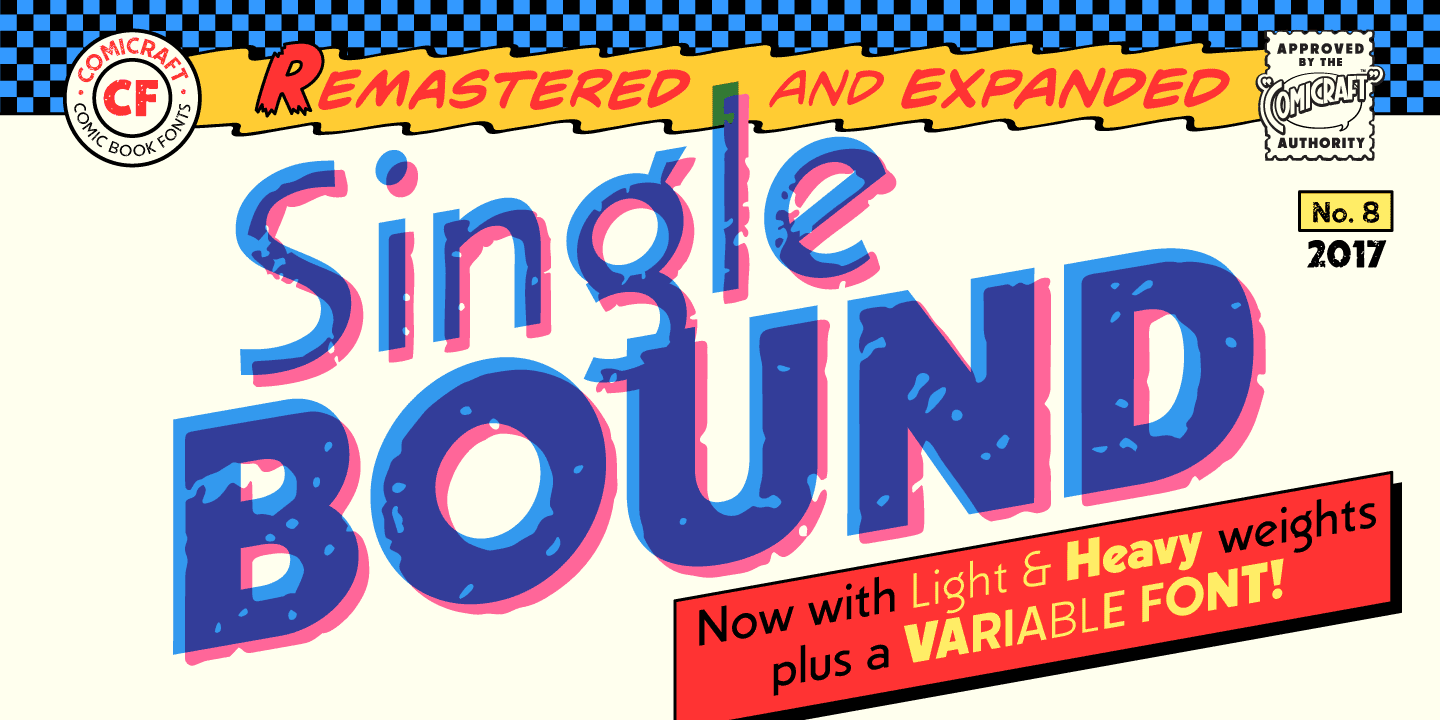
This heroic typeface is perfect for superhero comics, action movie posters, gaming interfaces, athletic performance brands, motivational fitness campaigns, adventure sports companies, energy drinks, comic book conventions, superhero merchandise, dynamic advertising campaigns, youth-oriented brands, and inspirational content platforms. The font's powerful design makes it ideal for projects that celebrate heroism, extraordinary achievements, and the ability to overcome any obstacle with superhuman determination.
Single Bound Font is exciting because it embodies superhuman power and heroic determination through its dynamic letterforms and action-inspired character structure. The font's bold strokes and explosive proportions create an atmosphere of strength, heroism, and limitless potential, making it perfect for brands that want to convey extraordinary capability, inspirational leadership, and the power to achieve the impossible. Its heroic personality ensures instant recognition while maintaining excellent readability across various action applications.
The Single Bound Font family includes multiple heroic variations: Light Hero, Regular Champion, Medium Defender, Bold Superhero, and Black Invincible weights, each available in standard and dynamic versions. Special comic editions feature action alternates, explosive effects, and superhero ornaments that enhance the font's heroic appeal, providing designers with comprehensive tools for creating authentic action-packed communications.